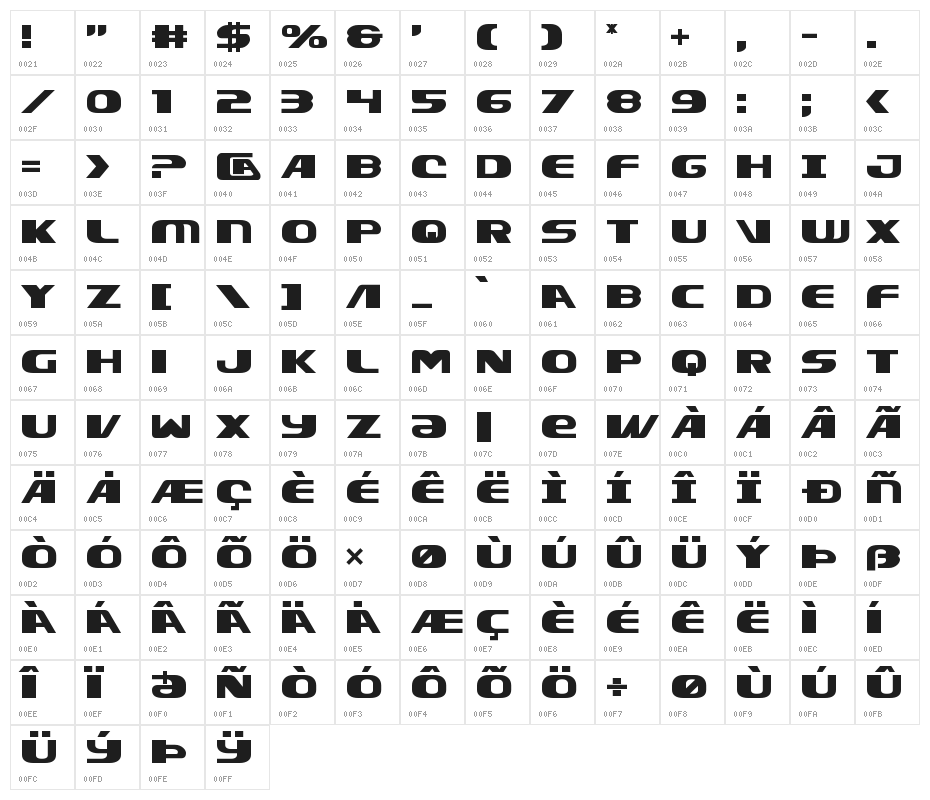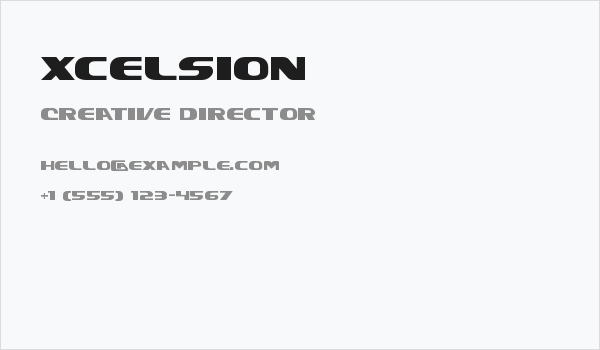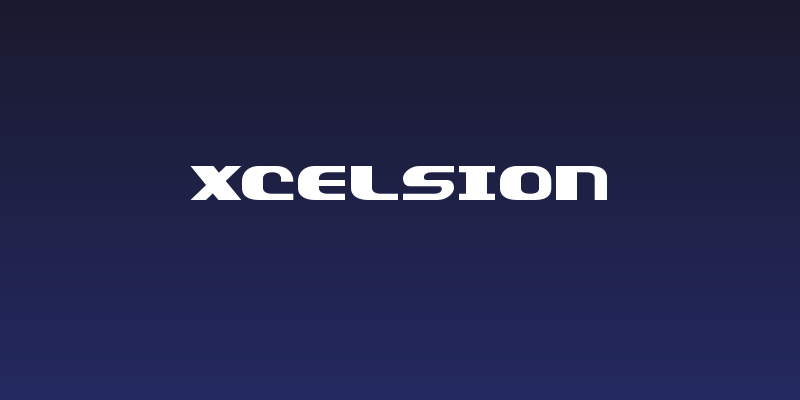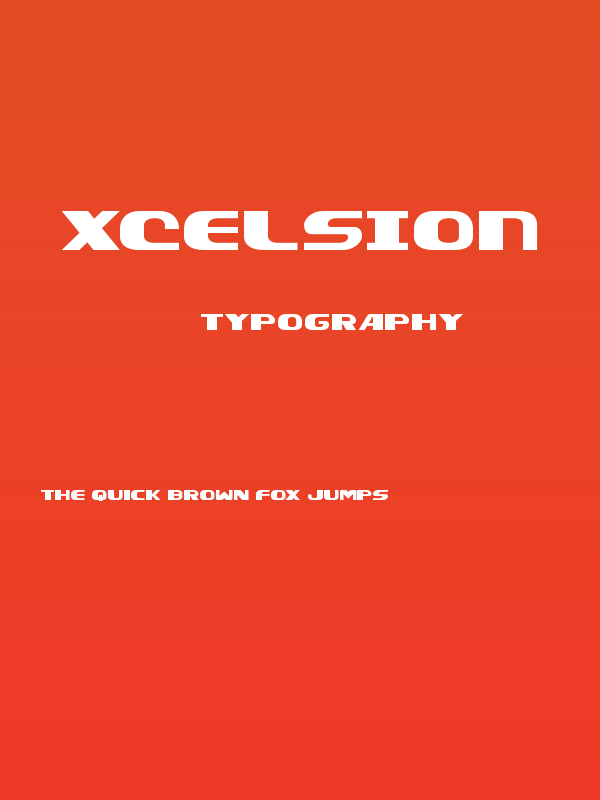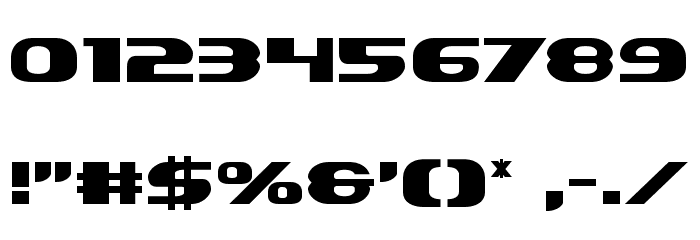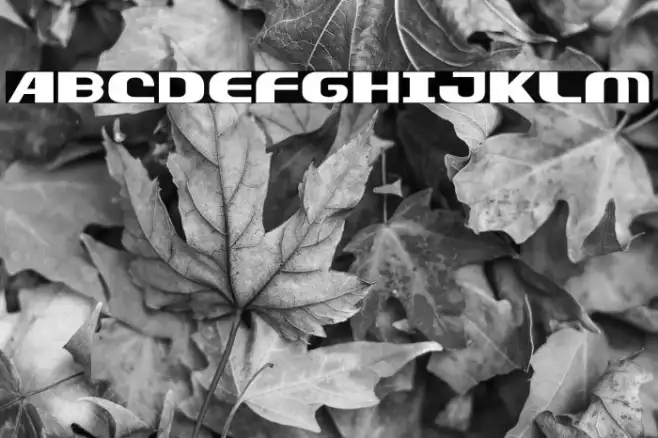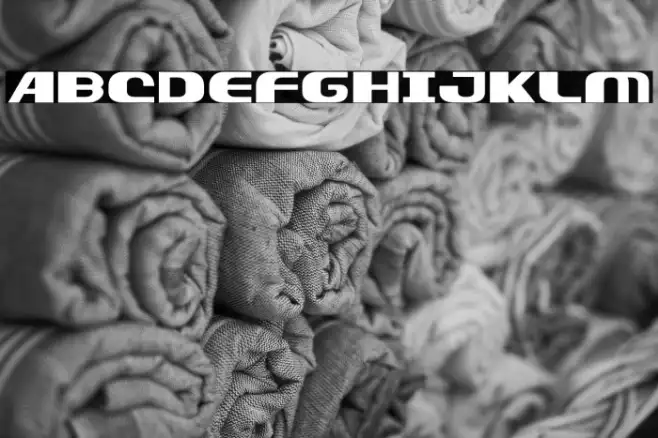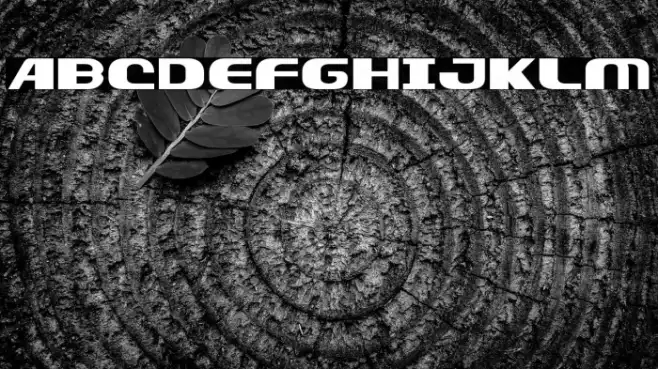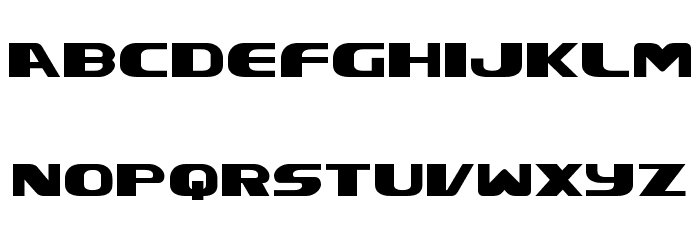
Xcelsion Font
Xcelsion Description
This font features a bold and futuristic design with a strong geometric influence. The characters are wide and have a distinct, angular appearance, giving them a modern and dynamic feel. The uppercase letters are particularly striking, with sharp edges and a uniform height that creates a cohesive look. The lowercase letters maintain the same boldness, ensuring readability while adding a touch of uniqueness. Numbers and special characters are consistent with the overall style, making this font versatile for various applications. The design is clean and impactful, suitable for projects that require a modern and assertive typeface.
| Proposed Projects | Ideal for technology branding, sci-fi movie posters, video game titles, and modern advertising campaigns. |